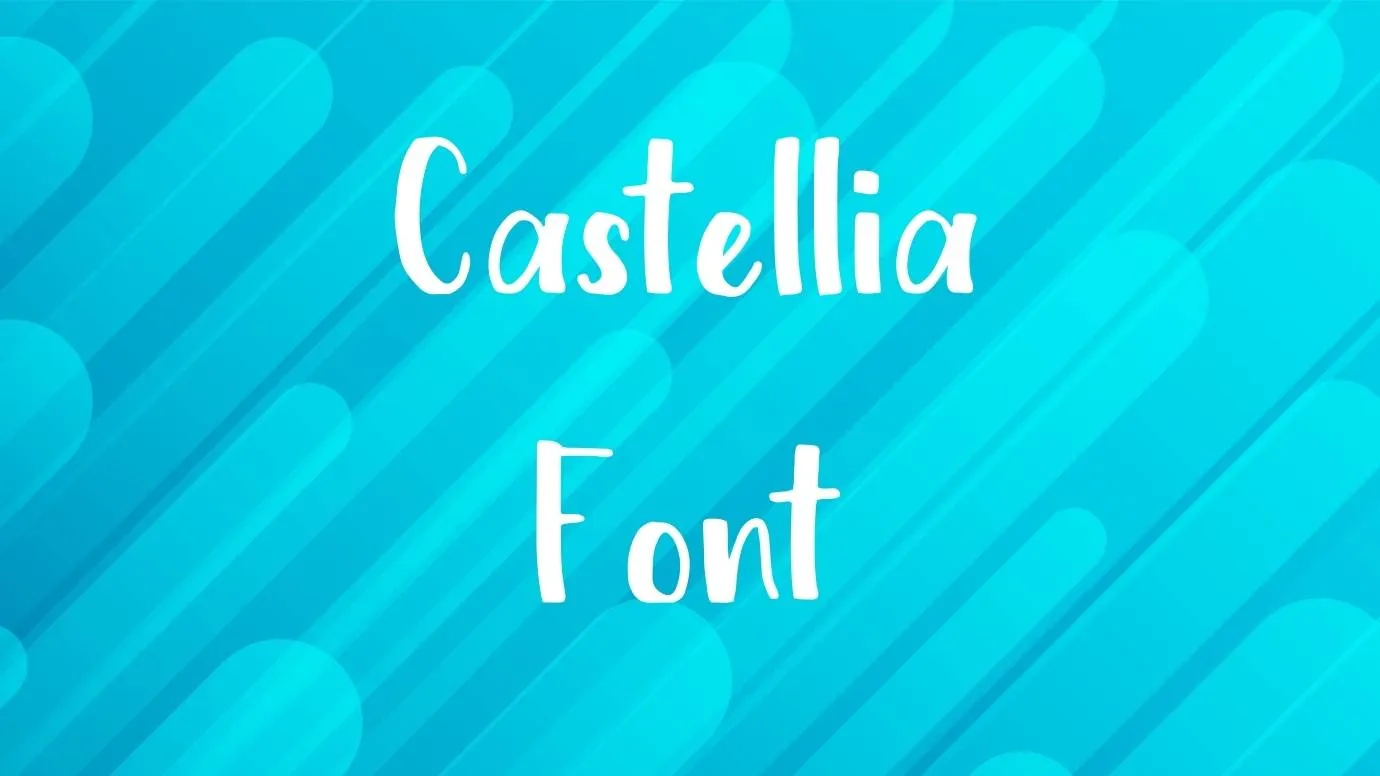
Castellia Font Family is a stylish and amazing typeface that belongs to the brush type. This typeface was created by a famous font studio known as Joel Maker Studio.
Castellia Font